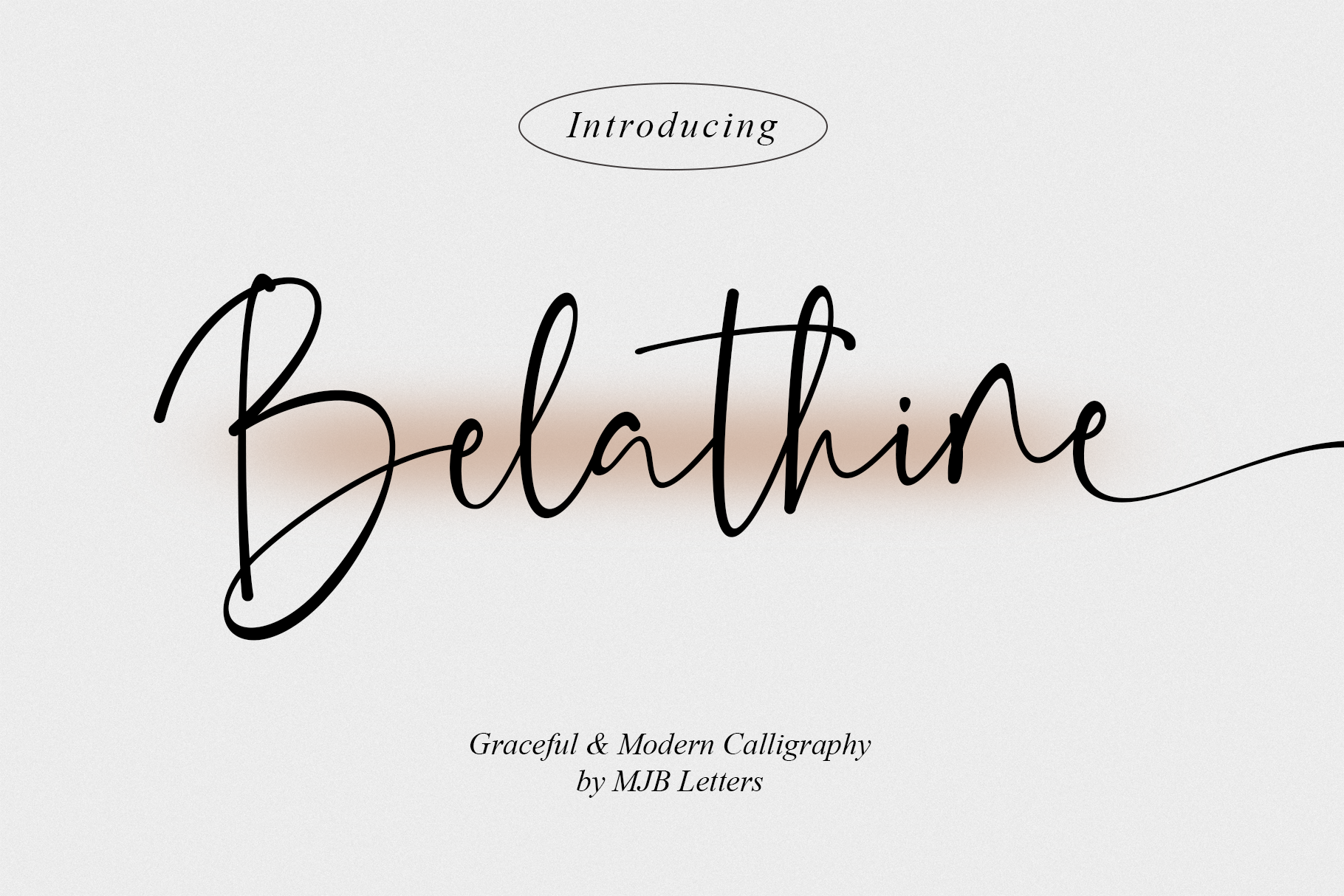
Belathine - Modern Script Font
Belathine is a stunning calligraphy font that embodies elegance, modernity, and sophistication. Designed with smooth strokes and delicate curves, this font brings a graceful and natural handwritten feel, making it perfect for various creative projects.
- Branding & Logo Design
- Wedding Invitations & Stationery
- Social Media & Quotes
- Product Packaging & Labels
- Book Covers & Magazines
- Elegant Website Headers
- Modern & Chic Calligraphy Style
- Smooth Flowing Handwritten Look
- Beautiful Ligatures & Alternates